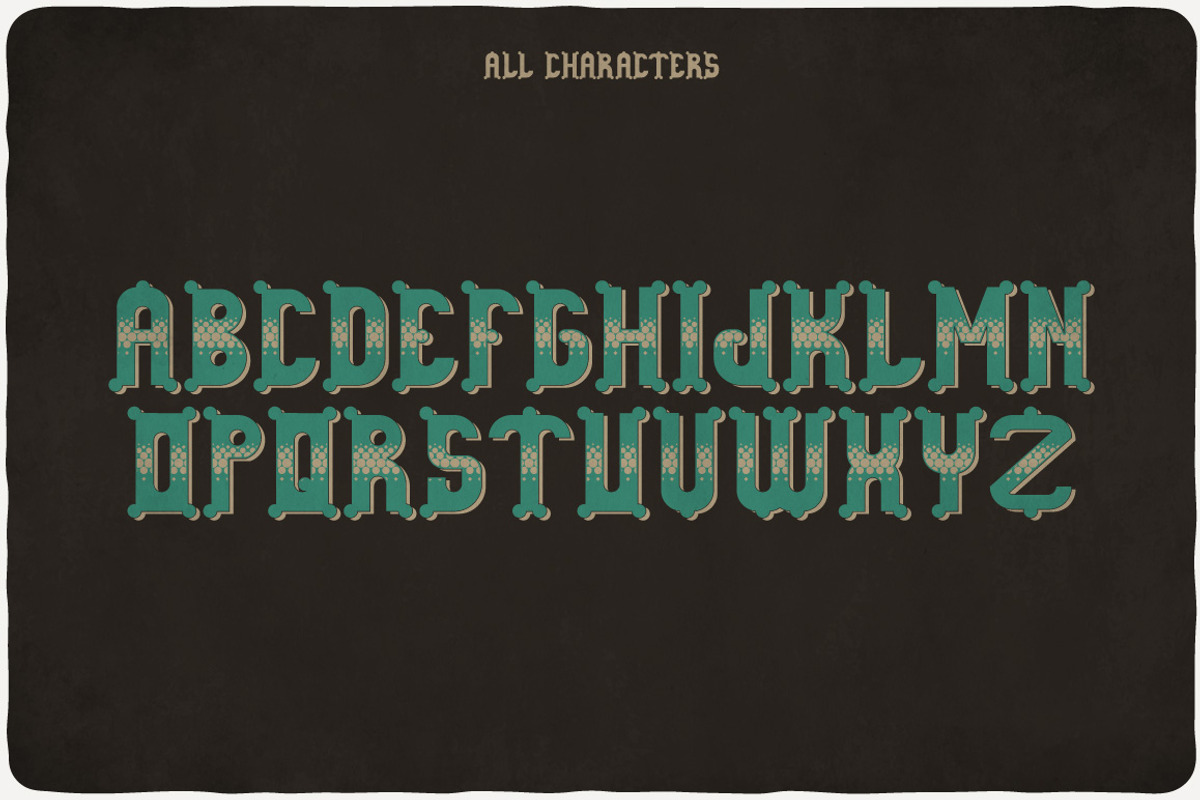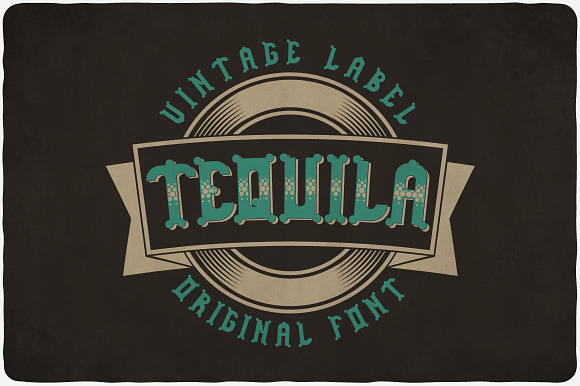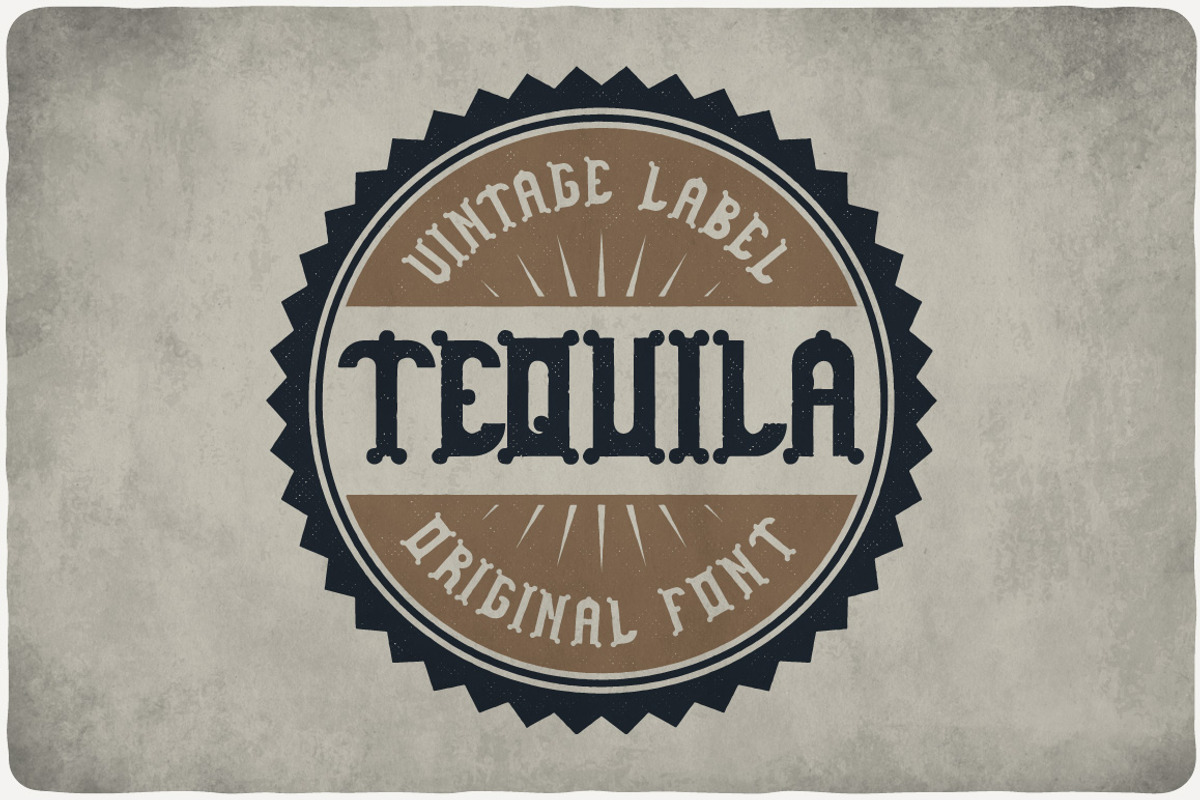
Tequila Typeface
Introducing a funny look label typeface named "Tequila". It contains elements symbolizing water bubbles. Typeface is good viewed on any drink labels design.
- It contains elements symbolizing water bubbles.
- Tequila Regular
- Tequila Aged
- Tequila Shadow
- Tequila Texture
- Tequila Texture And Shadow
Tequila Typeface by VozzyStock fits naturally into Branding, posters, packaging, typography.